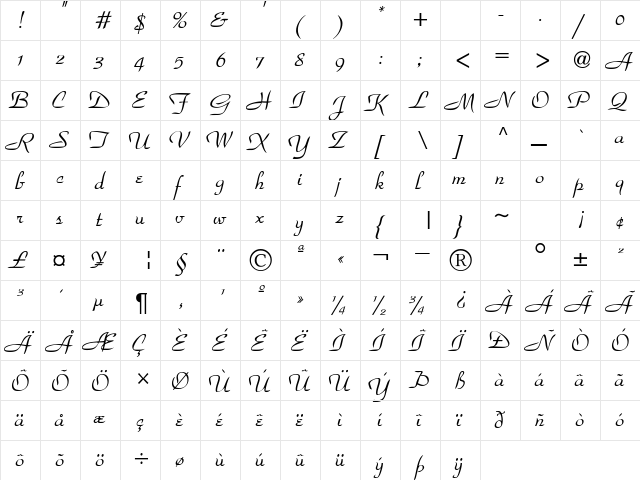
Pakistan Normal
Design Context for Pakistan Typeface
Pakistan is a composed and adaptable typeface that performs quietly and consistently across a wide range of design contexts.